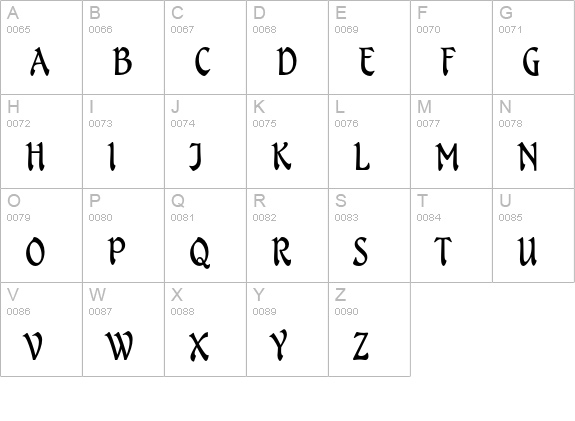
TarragonICG Font Details
Introducing TarragonICG, a captivating and versatile font that will take your designs to new heights. With its sleek and modern aesthetic, TarragonICG effortlessly combines elegance and sophistication, making it the perfect choice for a wide range of projects. Whether you're designing a logo, creating eye-catching headlines, or crafting stunning invitations, TarragonICG's clean lines and sharp edges will leave a lasting impression. Its careful balance of thick and thin strokes adds depth and dimension to your text, ensuring that every word stands out with utmost clarity. But what sets TarragonICG apart is not just its remarkable design, but also its accessibility. We believe that great design should be available to everyone, which is why TarragonICG is offered as a free font. That's right, you can freely download TarragonICG at FontsMarket.com, without any limitations or restrictions. So why wait? Elevate your designs with TarragonICG and let your creativity soar. Whether you're a professional designer or a passionate hobbyist, this font is here to inspire and empower you. Download TarragonICG today and unlock a world of possibilities for your next project.